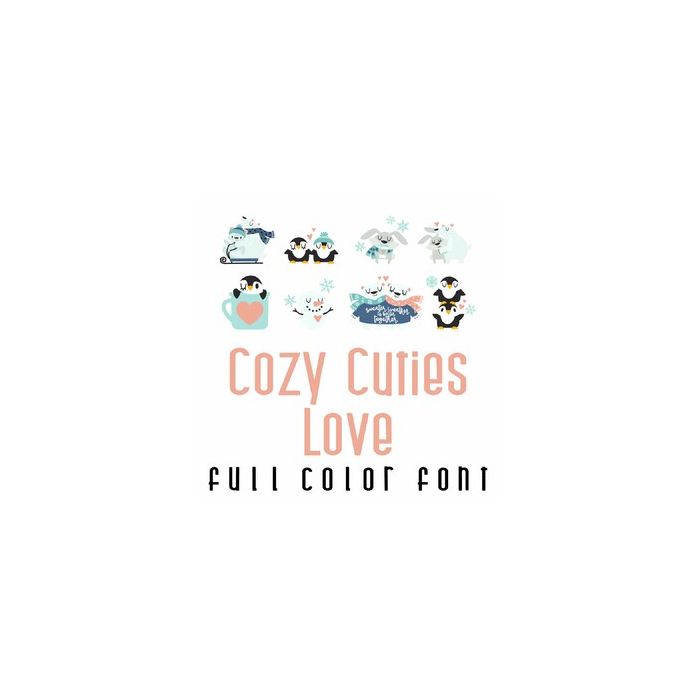
This adorable full-color doodlebat font features 26 adorable winter animals ready for love. Perfect for cards, crafts, gifts, decor, scrapbook pages, planner stickers, and more!